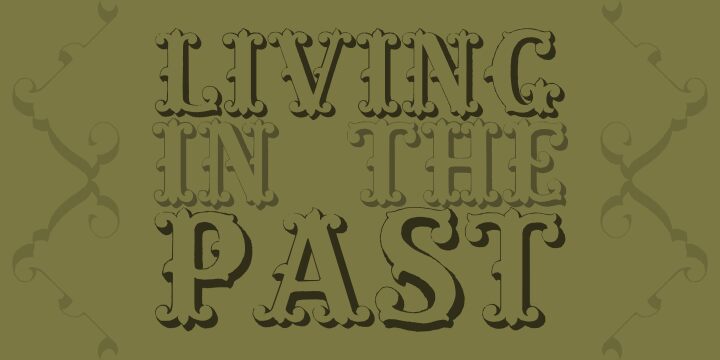
Living in the Past
Evoking a captivating vintage allure, "Living in the Past" by Intellecta Design is a retro-inspired display font that exudes a nostalgic charm. With its distinctive, hand-crafted aesthetic, this font seamlessly blends a refined sensibility with a touch of weathered elegance. The intricate letter forms and subtle variations lend an organic, artisanal quality, creating a visually striking and emotive typographic experience.
This font's versatility makes it a compelling choice for a wide range of design applications, from vintage-inspired branding and packaging to editorial layouts and promotional materials. Its timeless appeal and ability to evoke a sense of history and authenticity make it an ideal selection for projects seeking to convey a timeless, nostalgic ambiance.